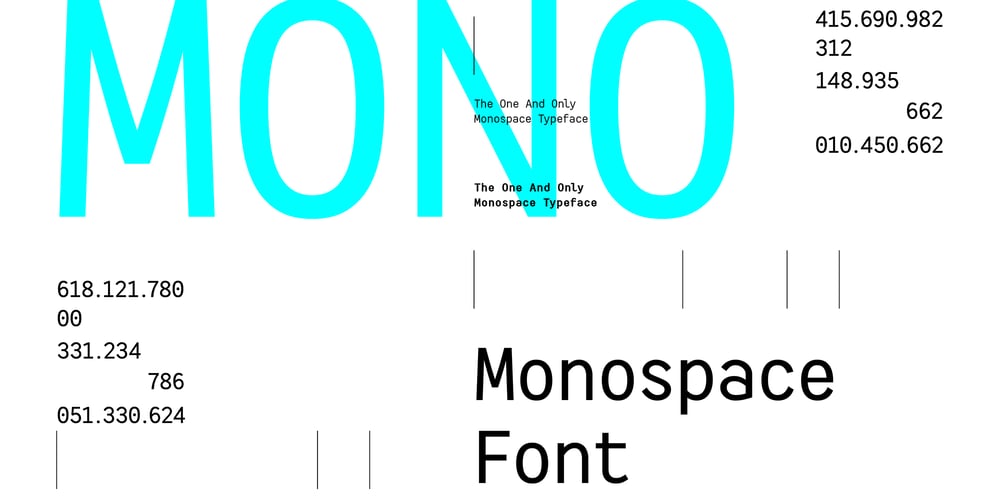
HF Monorita Font Family was designed by Chiawen Tsau and published by HyFont Studio. HF Monorita contains 5 styles and family package options. HF Monorita is the first monospace we have created. It is perfect for coding, display and design. The subtle curves on the diagonal strokes create a friendly vibe and can create a better reading flow for the users.